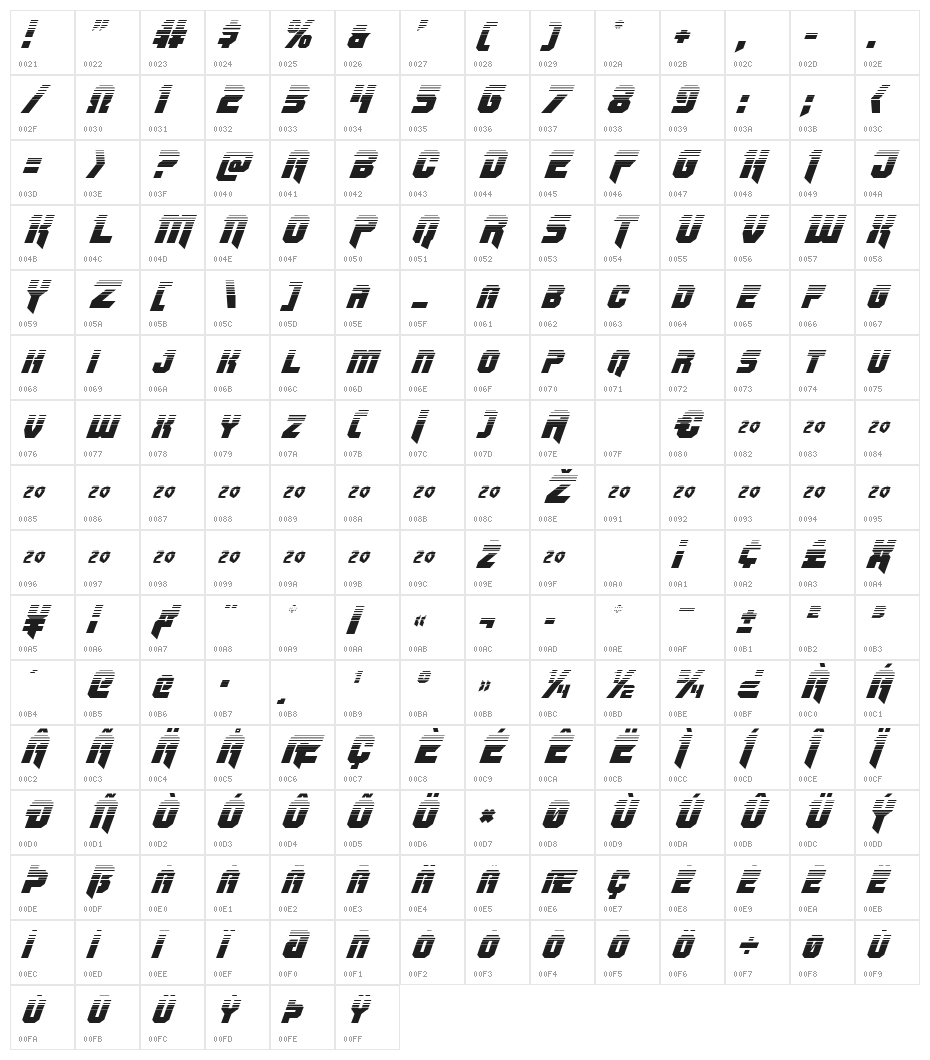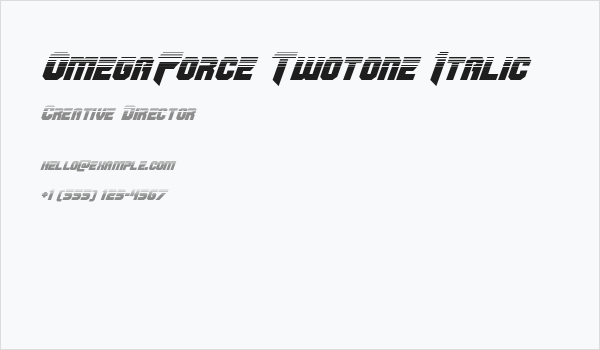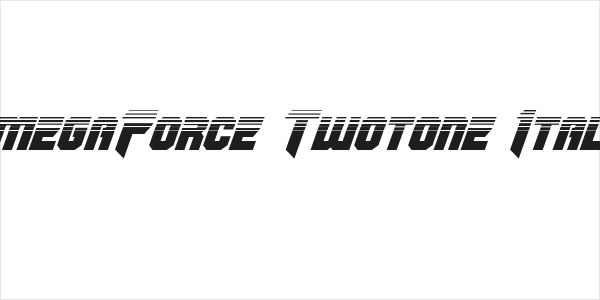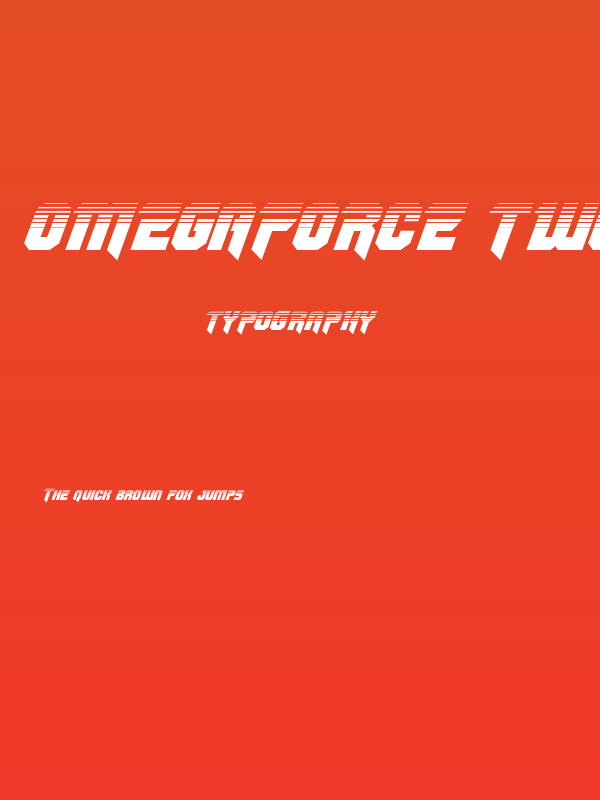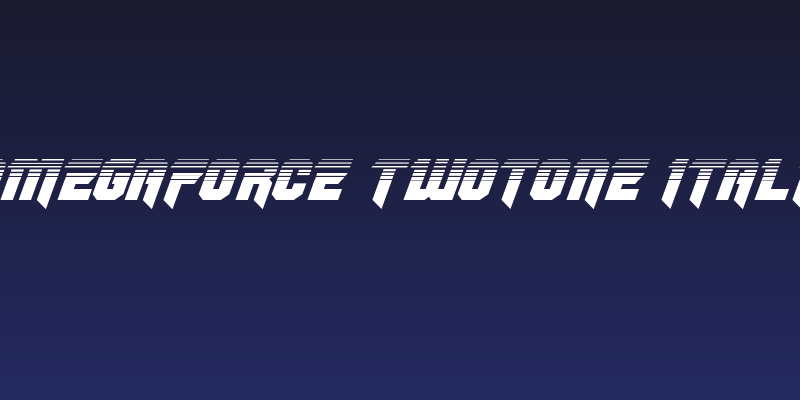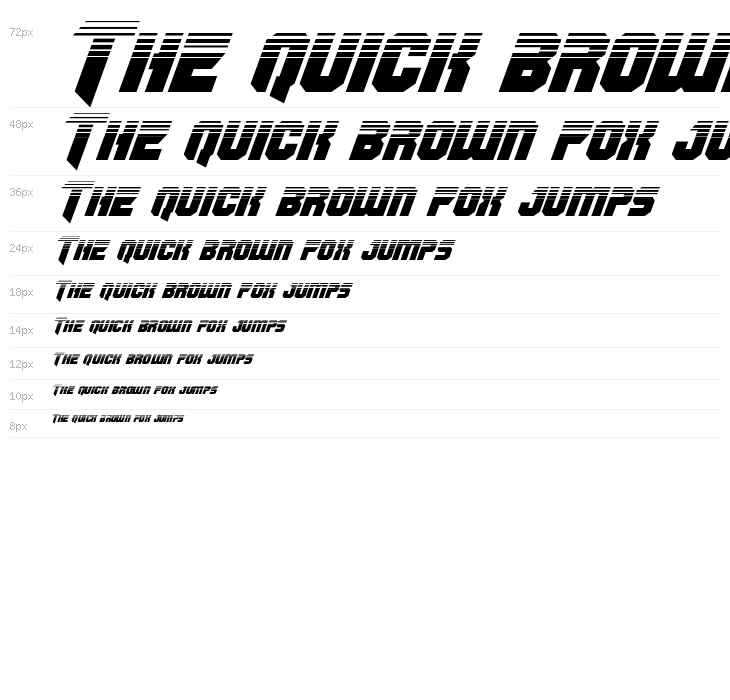
OmegaForce Twotone Italic Font
OmegaForce Twotone Italic Description
This font features a bold, futuristic design with a distinctive two-tone effect. The characters are italicized, giving a sense of motion and dynamism. The uppercase and lowercase letters are consistent in style, with sharp angles and a geometric structure. The numbers and special characters maintain the same aesthetic, ensuring uniformity across all glyphs. The horizontal lines that form part of each character add a unique layered appearance, enhancing its modern and edgy look.
| Proposed Projects | Ideal for sci-fi themed projects, video game titles, tech branding, and modern posters. |